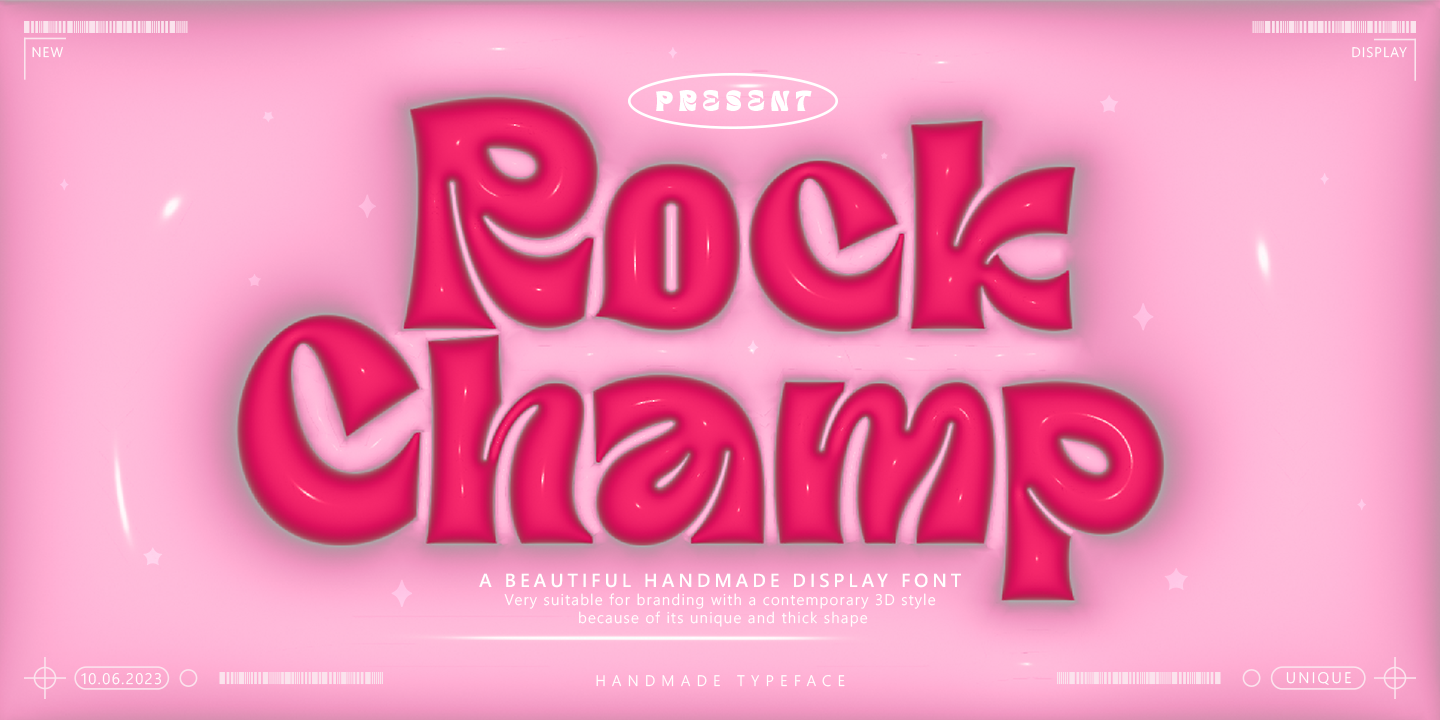
Rock Champ Font is ideal for rock music design projects including rock band logos, music festival promotions, concert venue signage, rock album covers, music merchandise design, rock radio stations, music recording studios, and electrifying entertainment campaigns. This powerful typeface excels in rock concert promoters, music equipment stores, guitar shops, rock music venues, and projects that celebrate the raw energy and rebellious spirit of rock and roll culture.
What makes Rock Champ Font exciting is its champion rock character that perfectly captures the essence of rock music power and musical excellence. The font features bold letterforms with rock-inspired styling that reflects the electrifying energy and commanding presence of championship rock performances. Its dynamic design elements embody the spirit of rock rebellion and musical mastery, making it perfect for projects that need to convey power, excellence, and connection to rock music heritage. The carefully crafted rock details create an atmosphere of musical authenticity and rock sophistication.
Rock Champ Font comes in multiple family variations including powerful, electric, rebellious, and champion styles. Each weight maintains the distinctive rock character while offering different levels of musical intensity and rock presence. The font family includes rock alternates, champion ligatures, and musical variations that provide designers with comprehensive options for creating truly electrifying and authentically rock-inspired typographic compositions that celebrate musical excellence.
Whether you're designing rock branding, creating music marketing materials, or developing concert promotional graphics, Rock Champ Font Free Download provides the perfect typographic foundation for projects that celebrate rock excellence and musical sophistication. This extraordinary typeface transforms ordinary text into compelling expressions of rock wisdom and musical power. Download this champion font today and rock your design projects with the musical authenticity and rock energy that captures the essential spirit of rock and roll culture and championship musical performance.